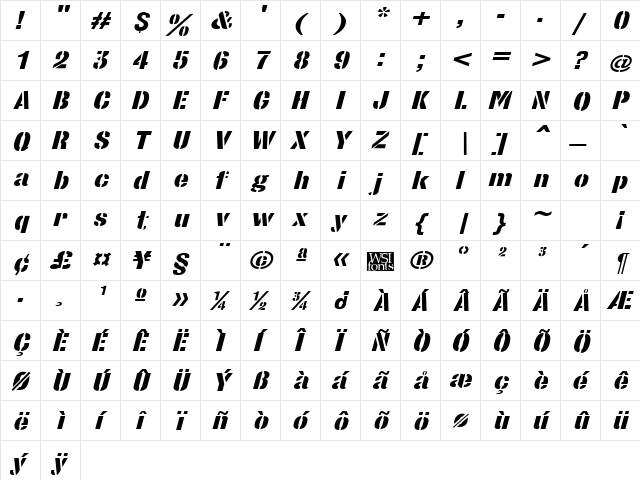
StencilSansExtrabold Italic Font Preview
Design Context for StencilSansExtrabold Typeface
StencilSansExtrabold borrows the utilitarian aesthetic of stencil lettering, with its characteristic cutaways and no-frills construction lending an industrial edge. The dynamic lean of this cut emphasises speed and emphasis in any layout. Its bold stroke weight gives it real presence on the page.
Ideal for industrial branding, streetwear, military-adjacent aesthetics, and urban signage projects.
Pro Tip: Pair StencilSansExtrabold with raw, utilitarian design elements — exposed concrete textures, flat colour, and minimal ornamentation suit it well.